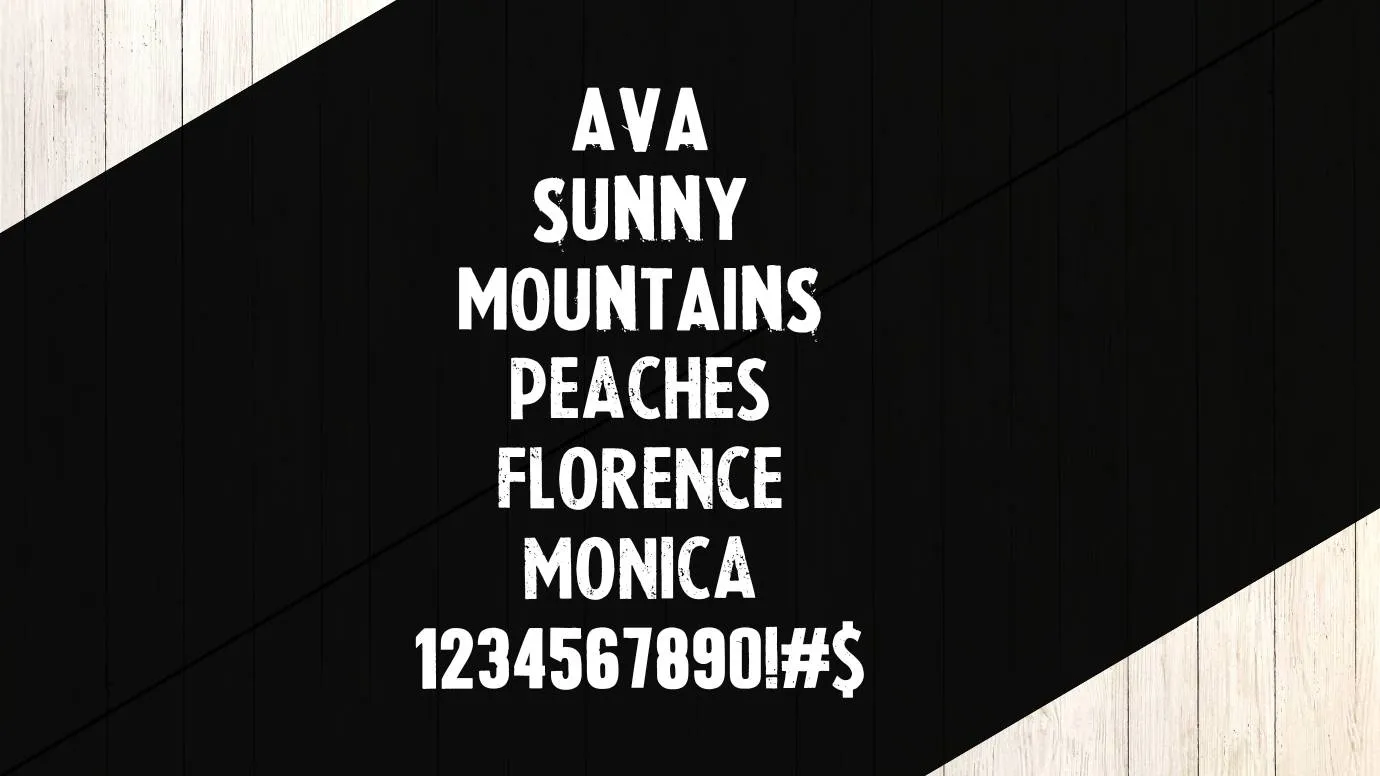
Lapresse Font is an elegant and unique Gothic texture. This typeface offers a classy and stylish appearance to your designs. The textured style is used in many websites for heading and designing purposes.
It also has an up-and-down curvy look while being easy to use with the height and width are same. With the handy generator tool, we can create new graphics with a mixture of different colors and numerous text effects.
Moreover, you can easily adjust on large screen displays and short texts. This textured style has a fashionable and creative texture visualization, making it ideal for use in trendy and creative designs.
Designer of Lapresse Font
The designer of the gothic typeface is imagex. The designer has designed lots of typefaces around the world.
Lapresse Font Family Includes
This font texture is constructed with a wide family of its own. These styles are mentioned below.
- Lapresse Regular
- Lapresse Extra Light
- Lapresse Light
- Lapresse Book
- Lapresse Medium
View of Lapresse Font
Lapresse Font Details
| Name | Lapresse Font |
| Style | Gothic |
| Designer | imagex |
What is the texture of the Lapresse typeface?
The typeface belongs to the Gothic family. It also has an up-and-down curvy look while being easy to use with the height and width are same.
Who is the designer of the Lapresse typeface?
The designer of the gothic typeface is imagex. While creating this typeface, the designer focussed on its texture.